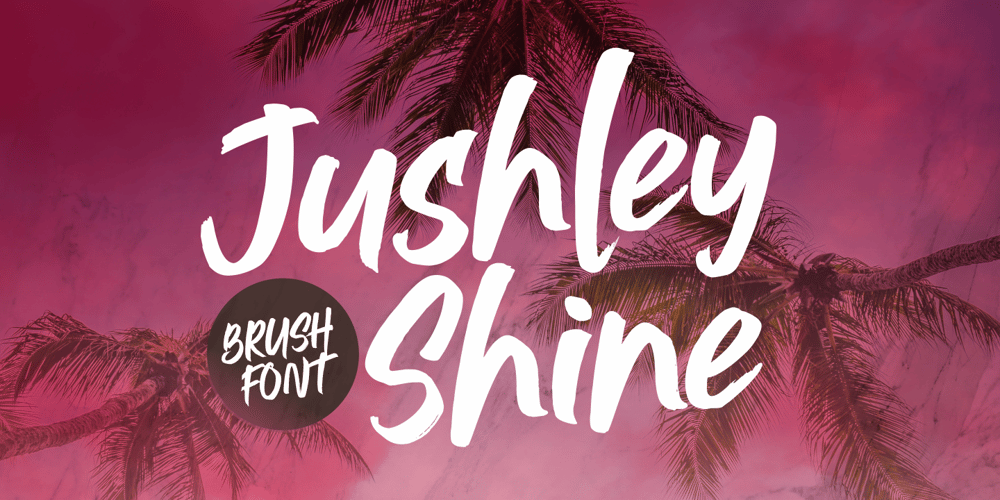
Jushley Shine Font Family was designed by Riyadh Rahman and published by Ergibi Studio. Jushley Shine contains 1 styles and family package options. Jushley Shine is a brush font made from handwriting. It contains lowercase, uppercase, symbols, and also support for multiple languages. Jushley Shine also works well on posters, branding, packaging, beautiful fashion design, wedding invitations and handwritten quotes.